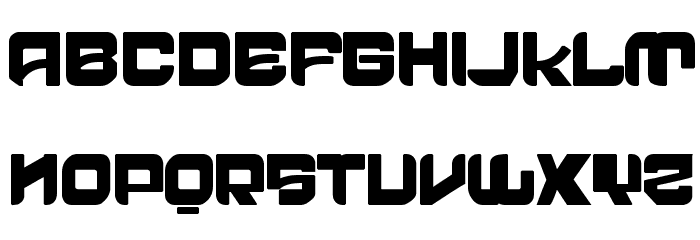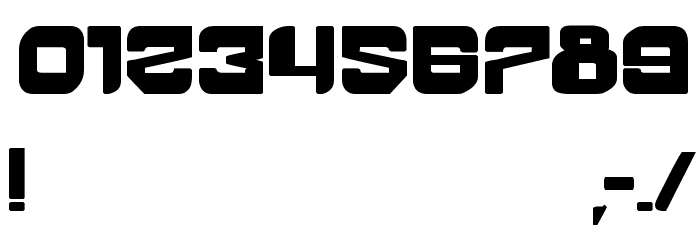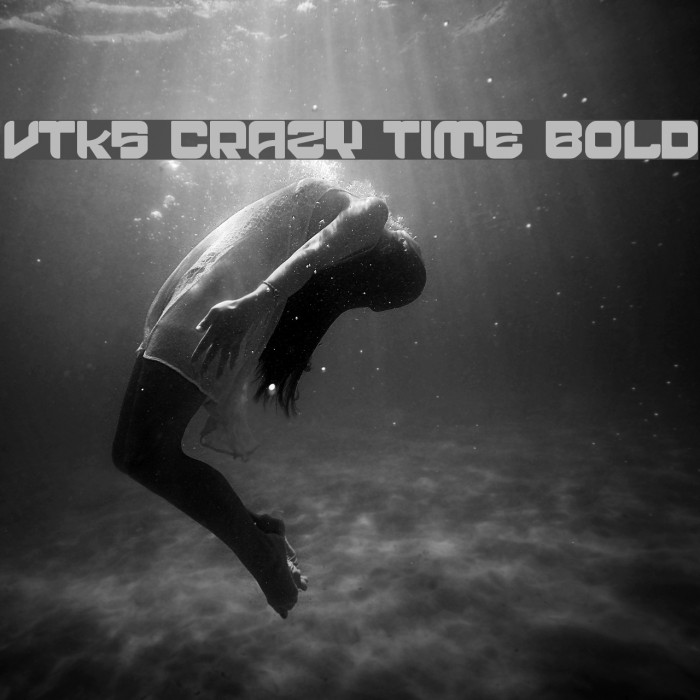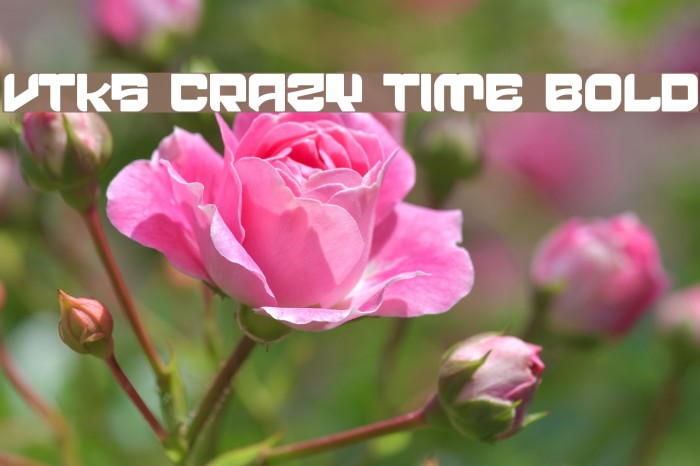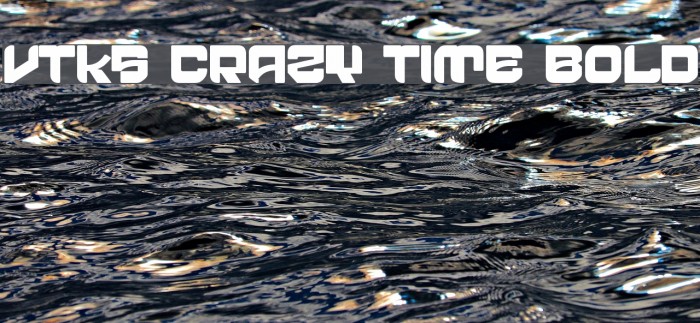
vtks crazy time bold Font
This font features a bold and striking design with a futuristic and geometric aesthetic. The characters are blocky with sharp angles and a consistent thickness throughout, creating a strong visual impact. The uppercase and lowercase letters maintain a uniform style, with the uppercase being slightly more pronounced. Numbers and special characters follow the same bold and angular theme, ensuring consistency across all elements. The overall appearance is modern and dynamic, making it suitable for attention-grabbing designs.
Bold, geometric font with a futuristic style.
- Proposed Projects: Ideal for posters, logos, video game graphics, and sci-fi themed projects.